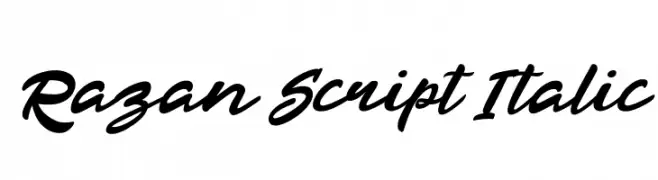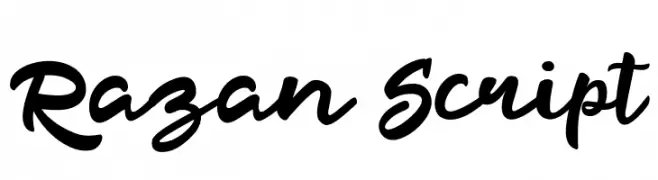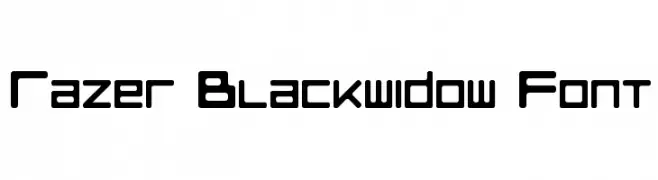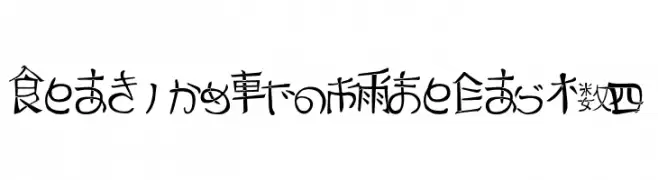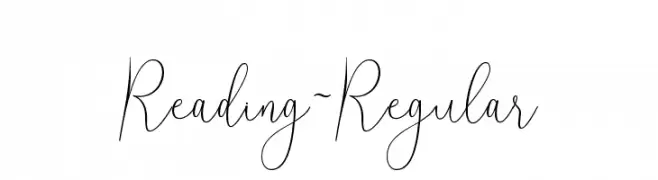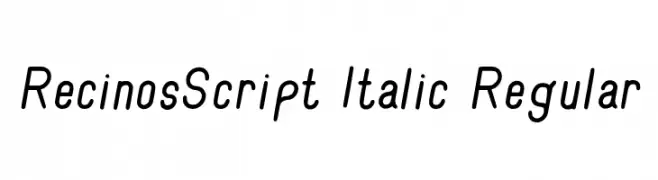
A playful, bold font with irregular strokes and a hand-drawn appearance.
A bold, expressive script font with fluid, dynamic strokes.
A bold, italic script font with a flowing, handwritten style.
A modern, geometric font with bold, rounded characters and a futuristic appeal.
A calligraphic font with dynamic strokes and a blend of traditional and modern elements.
A graceful, handwritten script font with elongated, flowing strokes.
A playful, bold script font with rounded edges and smooth curves.
A bold, italic script font with a modern, handwritten style.
A bold, rounded font with a playful and modern style.
A smooth, flowing script font with an elegant, dynamic appearance.